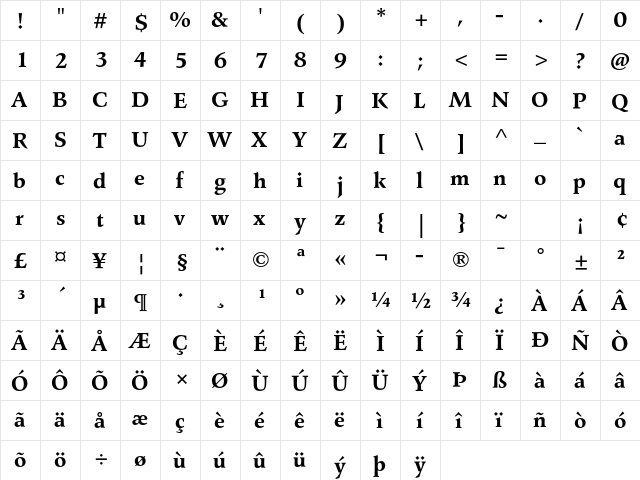
Agfa Wile Roman Std Bold Font Preview
Agfa Wile Roman Std Bold
Agfa Wile Roman Std Bold Font Details
Design Context for Agfa Wile Roman Std Typeface
Agfa Wile Roman Std takes a measured approach to typography — its balanced proportions and neutral character make it a reliable workhorse for both digital and print work. The heavy weight commands attention and anchors typographic hierarchies.